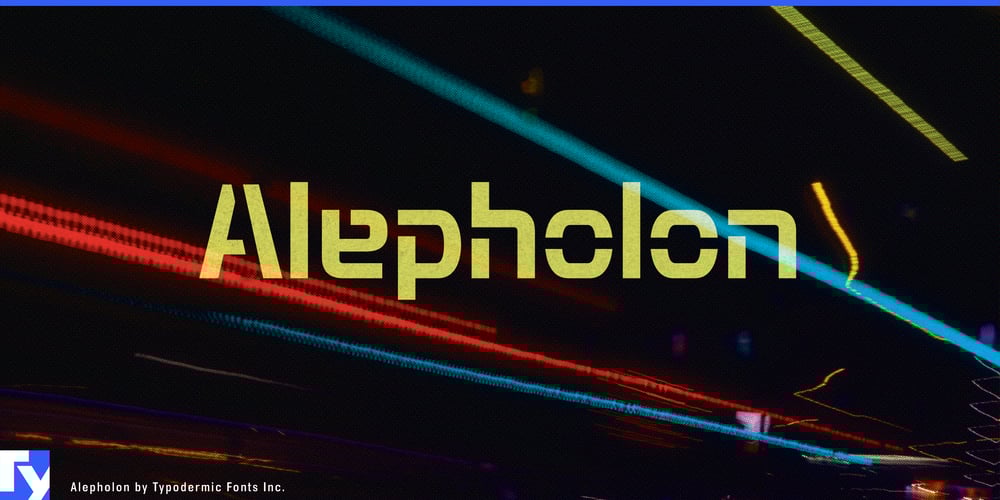
Alepholon
Alepholon font
Alepholon Font Family was designed by Ray Larabie and published by Typodermic. Alepholon contains 1 styles and family package options. Alepholon: Where industrial meets futuristic in typography. This revolutionary typeface challenges convention with its unconventional curves and resilient, mechanized structure. What sets Alepholon apart are its distinctive gaps—struts placed in unexpected positions, creating a stencil-like effect that’s both striking and original.Ideal for designs that demand a bold, forward-thinking statement, Alepholon excels in futuristic branding, tech-oriented displays, and avant-garde editorial layouts. Its unique character makes it particularly suited for industries pushing the boundaries of innovation.Despite its daring design, Alepholon maintains legibility across its supported Latin-based European writing systems. This ensures your message remains clear and impactful, whether in headlines, logotypes, or display text.Alepholon is a visual declaration of progress. Its mechanized aesthetics and unexpected gaps create a rhythm that captures attention and sparks imagination. For designers ready to elevate their work beyond the ordinary, Alepholon offers a path to typographic distinction that’s truly out of this world.